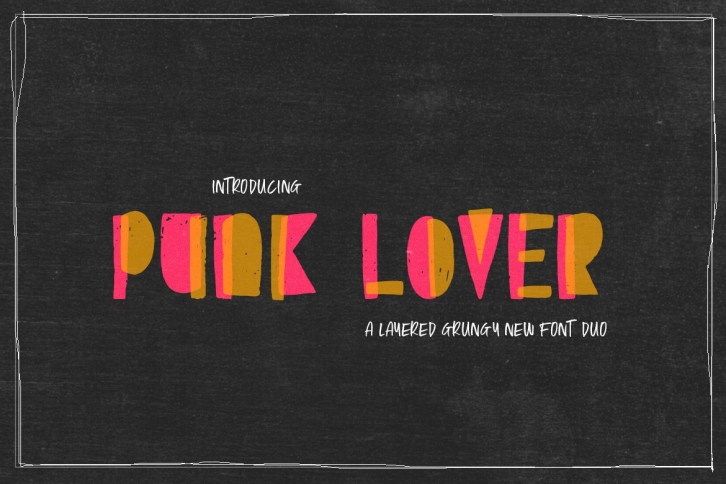
Punk Lover Duo is a beautiful font that was designed by Salt and Pepper Designs. It's a great choice for designers and creatives who need such a font. It was released on January 6, 2021 and the file size is 19.69 MB. Punk Lover Duo may give a more youthful, expressive and casual look to your project. It is a very beautiful, refined, elegant, and high-quality font.